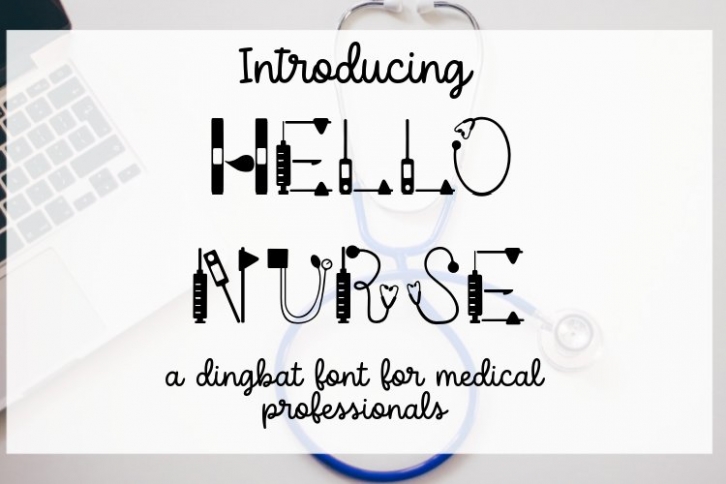
Hello Nurse is a trendy and unique font with an authentic style. It was designed by Lakeside Cottage Arts and it's a great choice for creative people who need such a font. It was released on October 3, 2021 and the file size is 19.54 MB. Hello Nurse will add an organic vibe to any design idea!